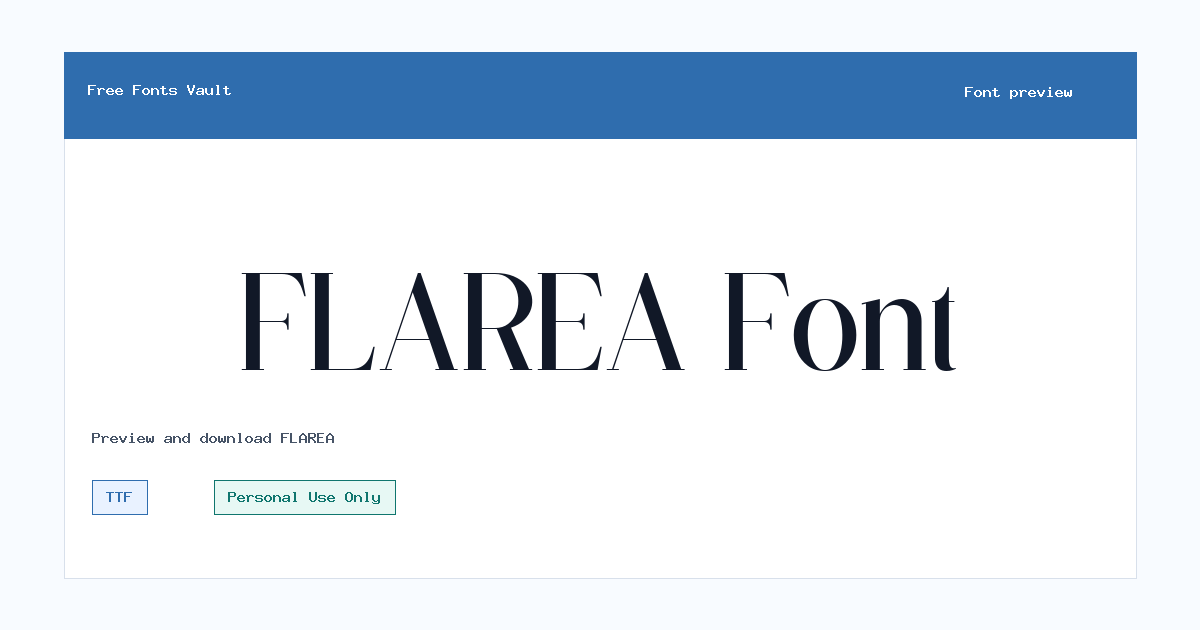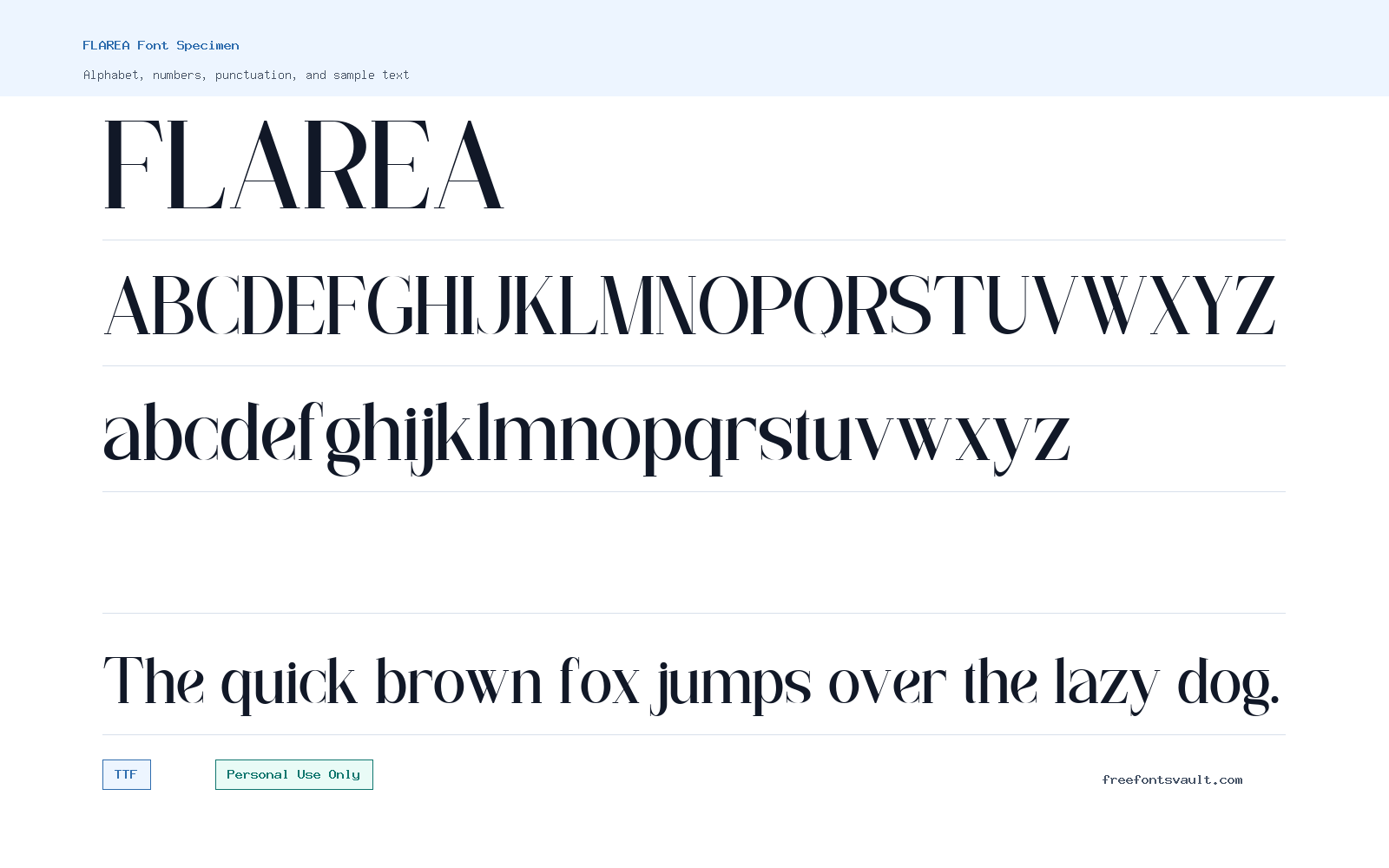
FLAREA
FLAREA is a personal-use serif font by FLAWLESSANDCO, offered as a regular TTF style for designers who want to test it in display layouts, logo drafts, posters, and visual concepts.
FLAREA is best approached as a display-focused serif rather than a long-reading text face. The available style is a regular weight, so the font is most useful when you need one consistent voice across a title, short phrase, name mark, or promotional graphic. Because only one style is listed, it works better for focused designs than for large editorial systems that need bold, italic, condensed, or text-specific cuts. Try it first in the live preview with the exact words you plan to use, especially if your design depends on letter spacing, uppercase shapes, or a short brand-style lockup.
For logo work, FLAREA can be useful during the early concept stage when you want to compare serif lettering against cleaner sans serif or script alternatives. Test short names, initials, product labels, boutique-style headings, invitation titles, and poster lines at several sizes. A font can look strong in a large preview but become harder to read when used small, so check it in realistic mockups before committing. For web mockups, use FLAREA in hero headings, banner text, or decorative title areas rather than long body copy unless your own readability testing supports it. Pair it with a simple sans serif for paragraphs, navigation, captions, and UI labels so the serif display text has room to stand out without making the whole layout feel heavy.
- Personal-use serif font suitable for short display text, title experiments, and logo concept drafts.
- Single listed style with normal weight, useful for consistent one-style compositions.
- A practical choice for testing headings, poster titles, name marks, and decorative text treatments.
- Works best when paired with a neutral, readable companion font for longer text.
- Logo concept sketches and early brand direction tests
- Poster titles, event graphics, and short promotional headlines
- Invitation headings, boutique labels, and name-based layouts
- Website hero mockups, landing page headlines, and social media graphics
- Typography experiments where a single regular serif style is enough
Use FLAREA where the words are short and important: names, titles, labels, and display headings. Increase letter spacing carefully, preview mixed-case and uppercase text, and check punctuation or numbers if they matter to your layout. For readable designs, pair it with a plain sans serif for body text and keep FLAREA for the main visual moment. If you are preparing a logo or web mockup, test the font at small, medium, and large sizes before exporting final artwork.
What kind of projects is FLAREA good for?
It is best for short display uses such as logo drafts, poster titles, headings, invitations, labels, and web hero mockups. It is not the safest choice for long paragraphs unless your own testing shows it reads well.
Does FLAREA include bold or italic styles?
Only a regular, normal-weight style is listed. If your project needs a full type family with bold, italic, or multiple weights, you may need to pair it with another font or choose a larger family.
What should I pair with FLAREA?
A clean sans serif is usually the safest companion. Use FLAREA for the headline or logo-style text, then use the simpler font for paragraphs, menus, captions, and smaller information.